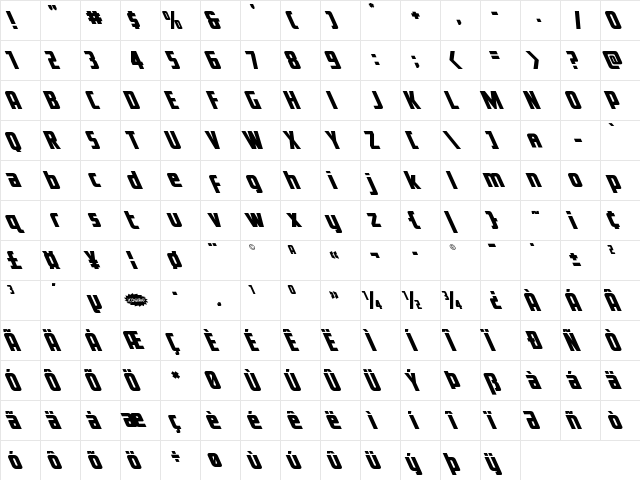
Voyage Fantastique Leftalic Italic Font Preview
Voyage Fantastique Leftalic Italic
Voyage Fantastique Leftalic Italic Font Details
Design Context for Voyage Fantastique Leftalic Typeface
Voyage Fantastique Leftalic offers clean, dependable letterforms without strong stylistic allegiance, making it a practical choice for designers who need flexibility. Its italic angle brings a sense of urgency and motion to the letterforms.